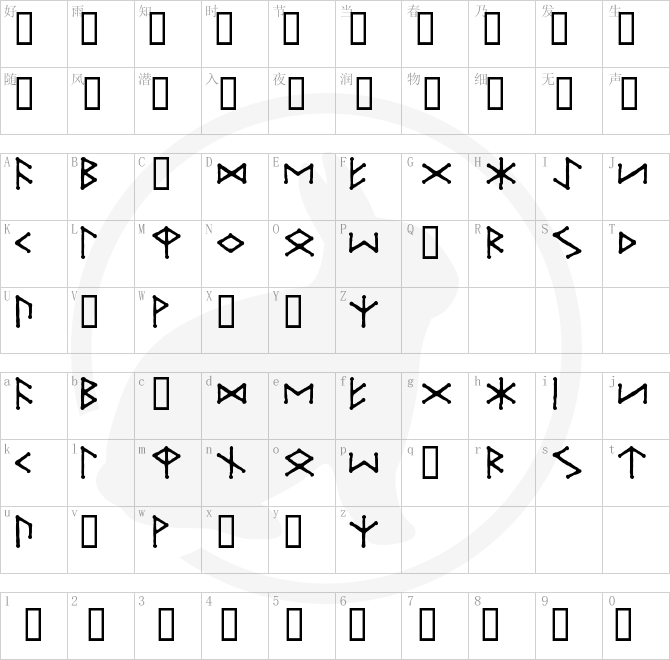
- Font Name:Ice-egg Futhark Runes
- Subfamily:Futhark Runes, in the Forms of the Ice Egg
- Full Name:Ice-egg Futhark Regular
Ice-egg-Futhark-Regular.ttf is a very beautiful artistic font, Ice-egg-Futhark-Regular.ttf is widely used in the design and printing of various books and pictures,Ice-egg-Futhark-Regular.ttf has a strong visual impact,Ice-egg-Futhark-Regular.ttf is a commonly used font in newspapers, magazines and books, and is used in posters, e-commerce Poster design, store design, logo design, font design and other fields.Ice-egg-Futhark-Regular.